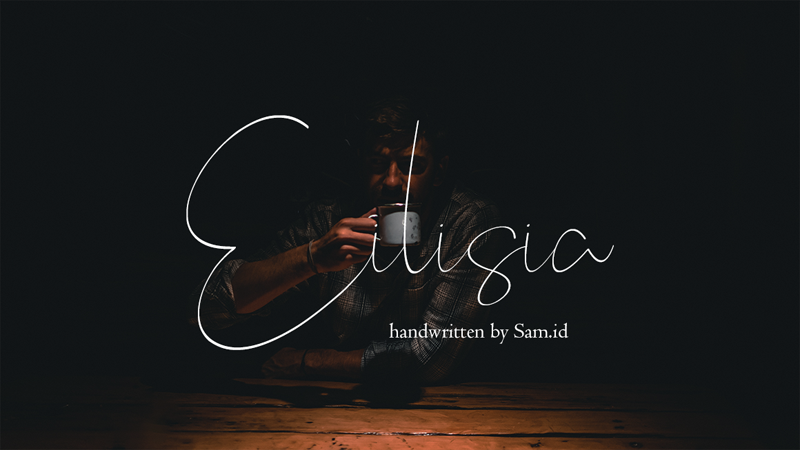
Font name: | Eilisia |
Author: | Dimas Aji Virgiawan |
Note by Dimas Aji Virgiawan | |
Hi How are you guys? I Think You're good. First introducing my fonts it's called Eilisia. Eilisia is a Modern Handwritten font, it's usable invitation wedding, Branding, Business card, etc. Email : dimasajivirgiawan@gmail.com Thank you! |